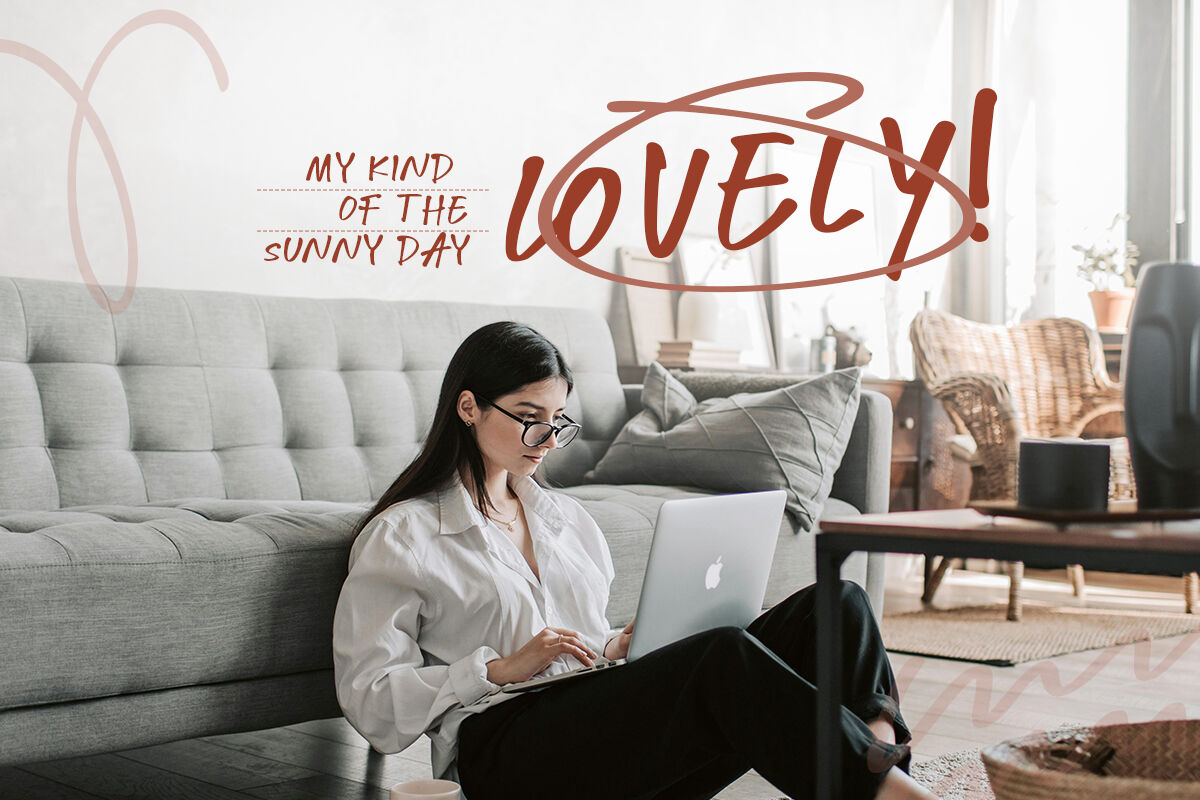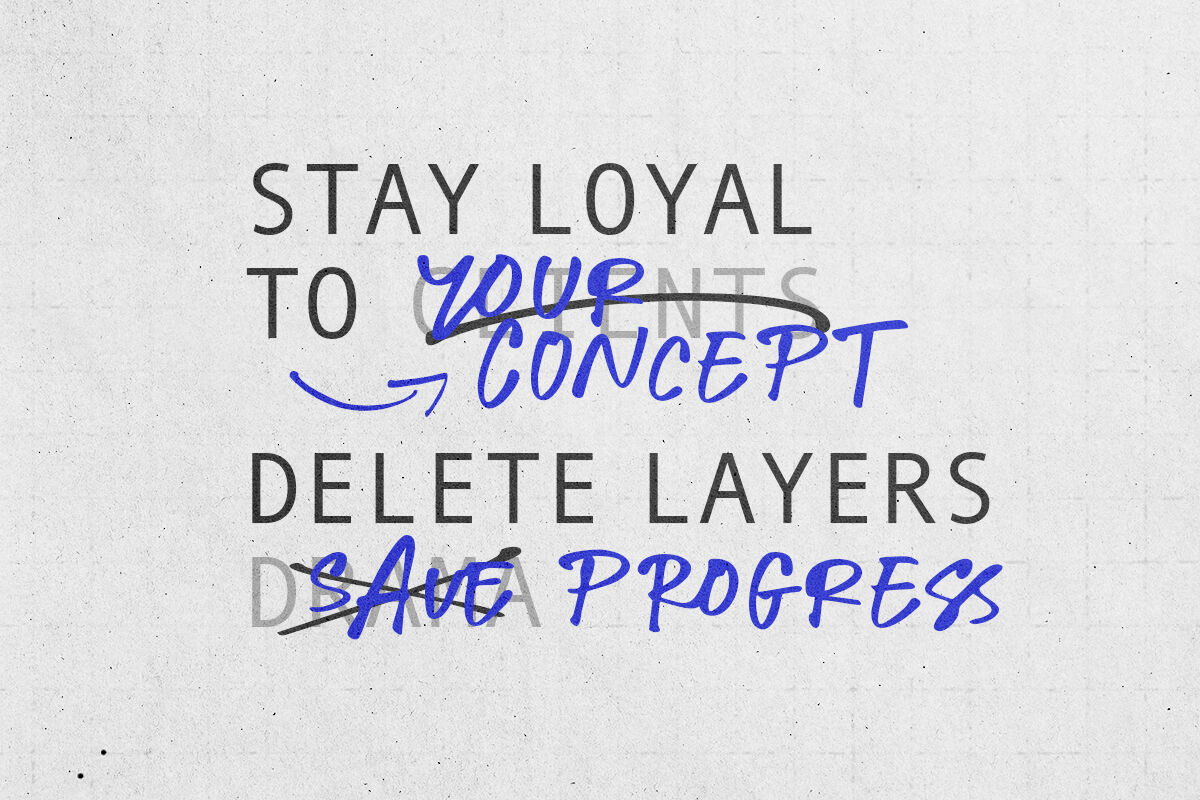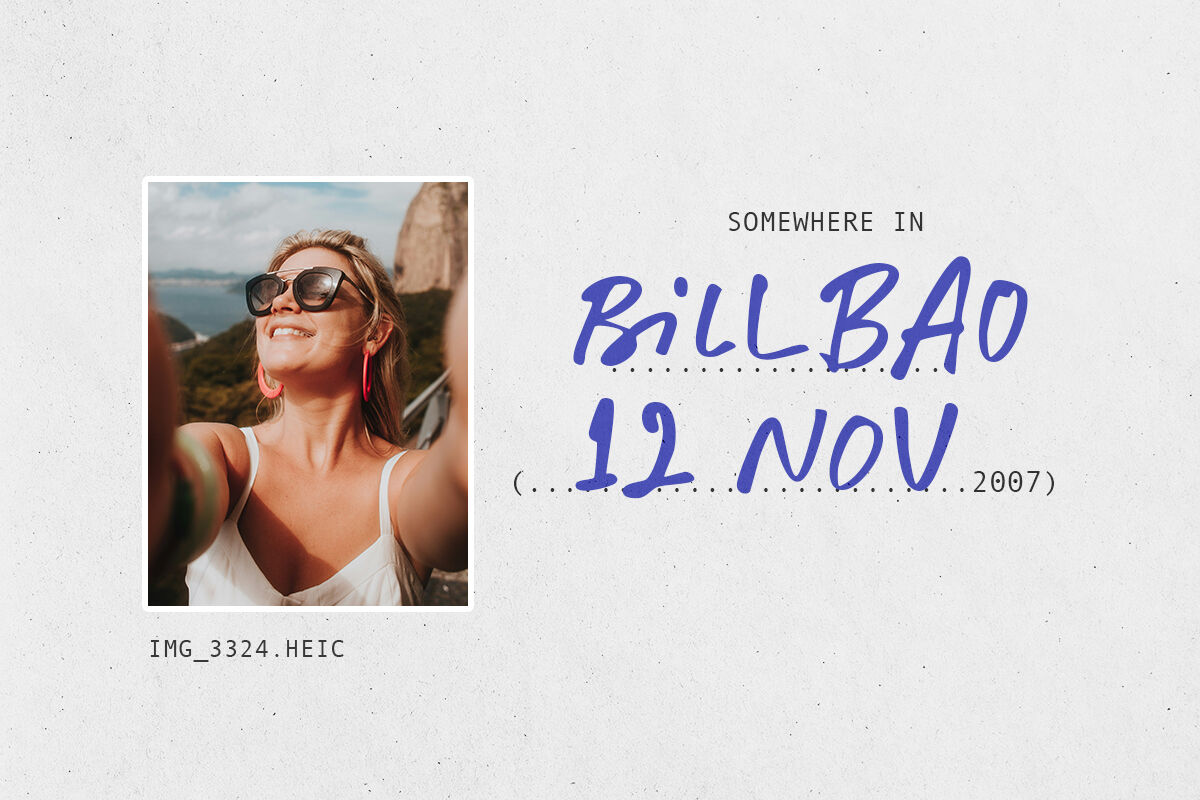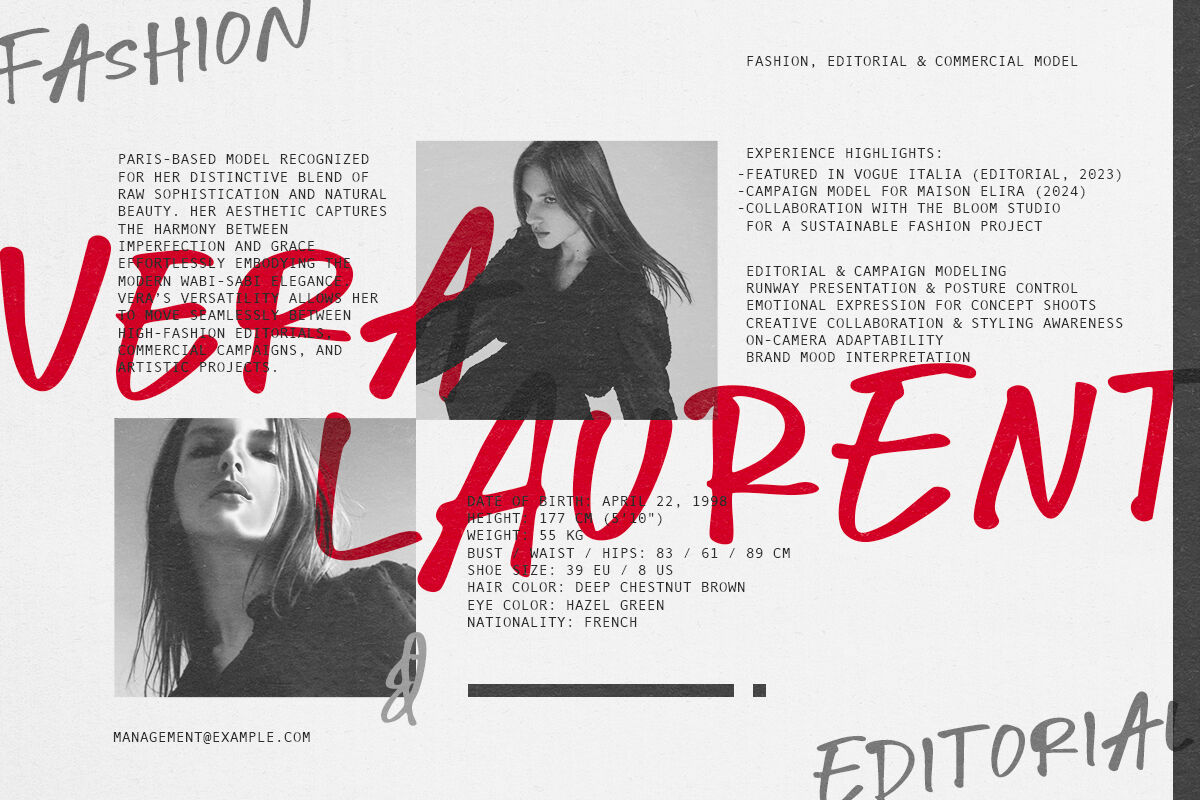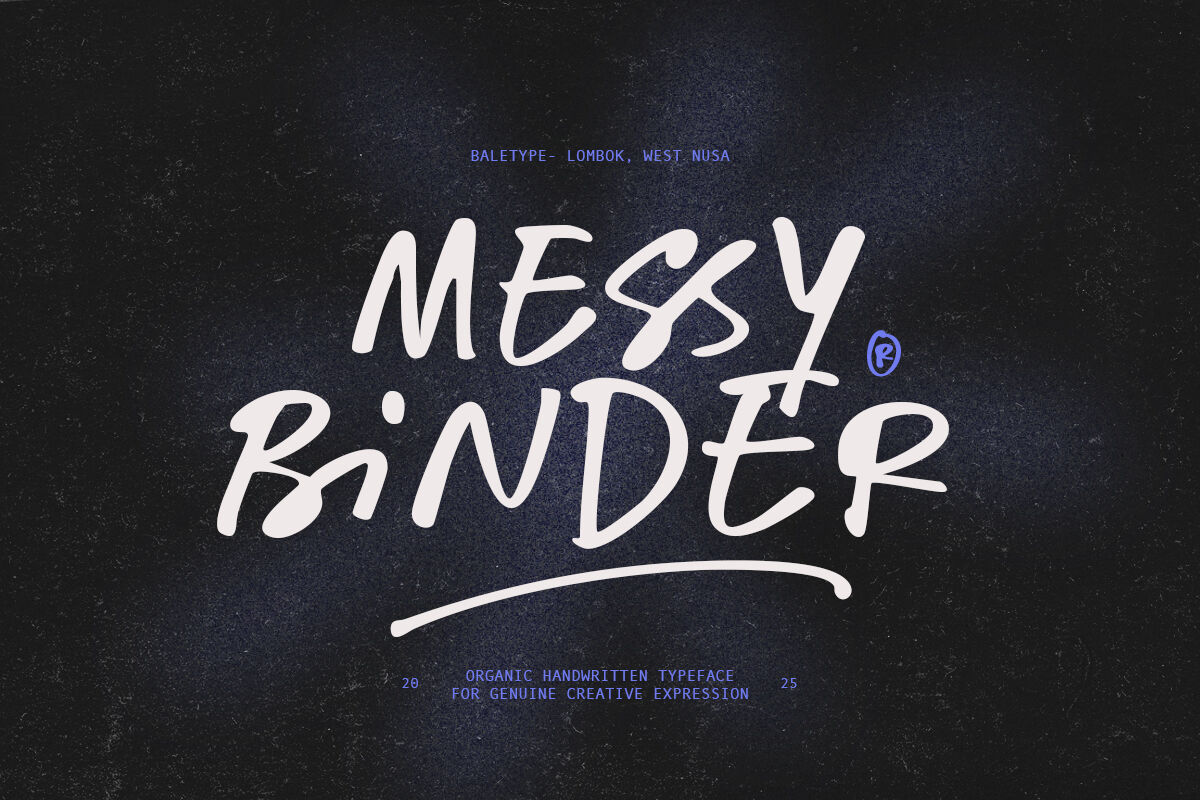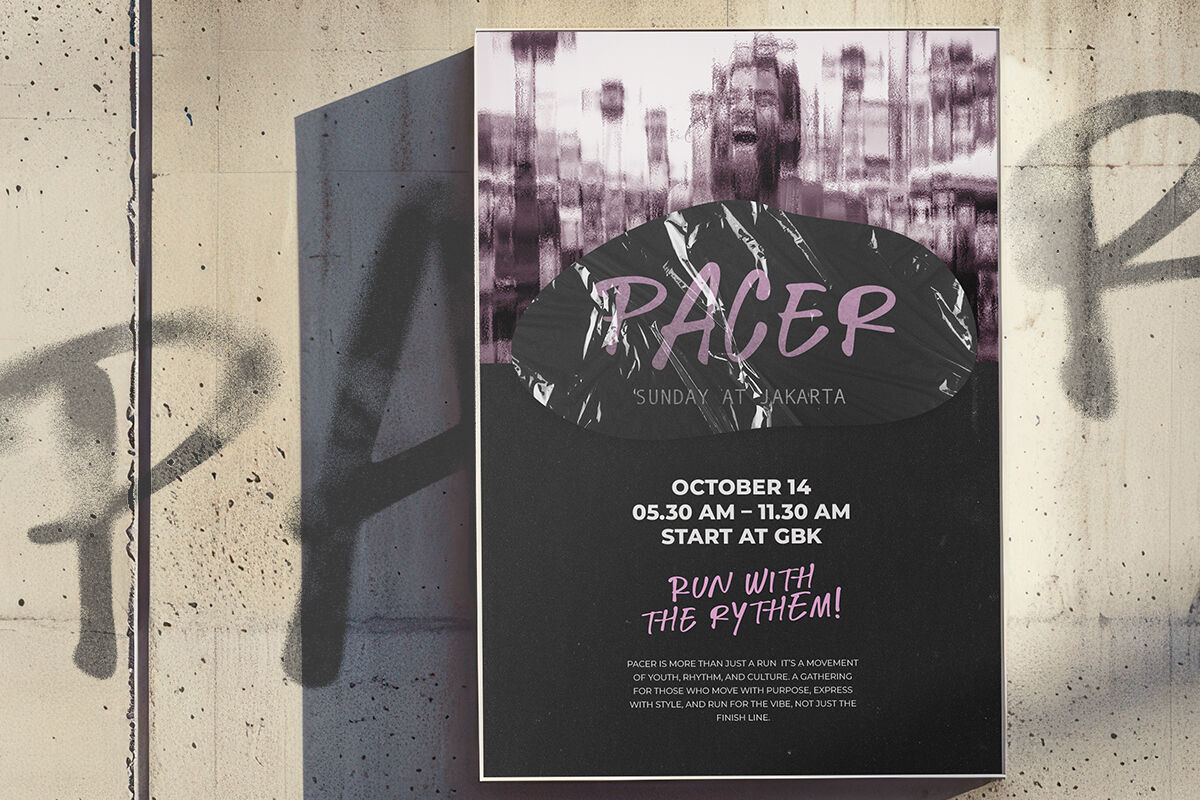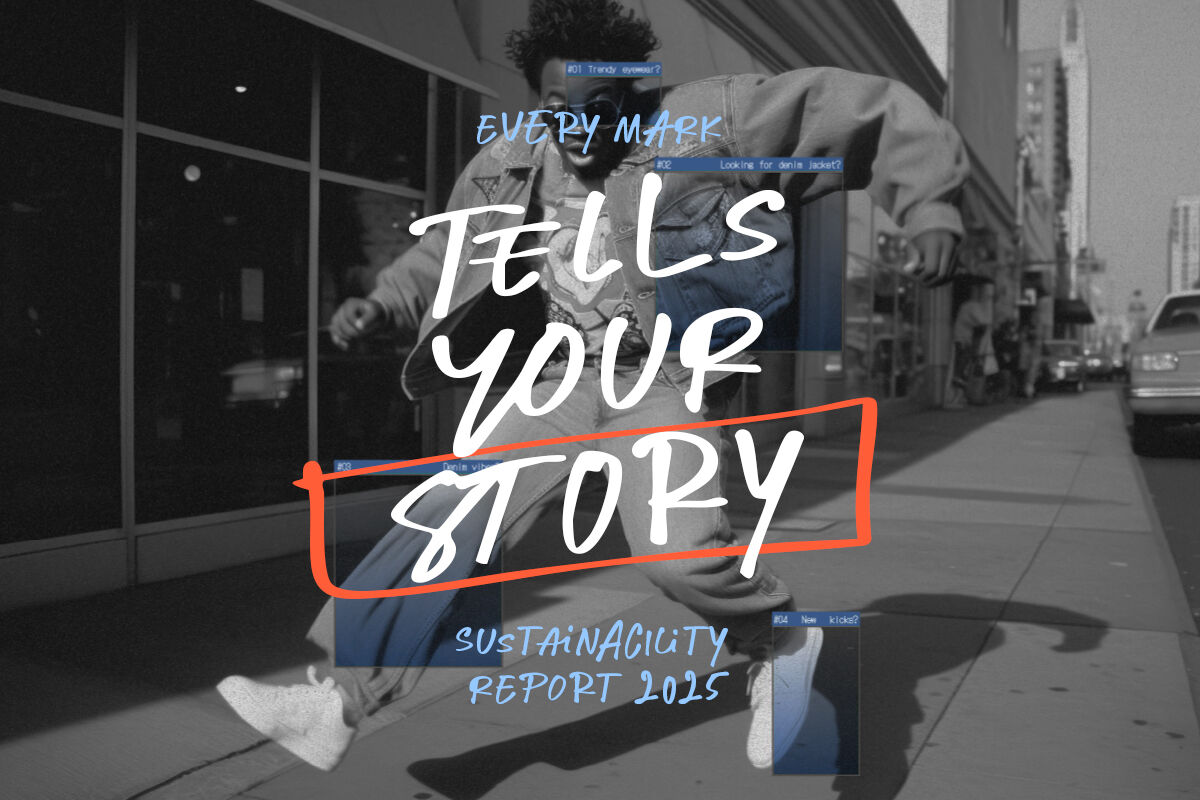
Messy Binder - Handwritten Font
Messy Binder is a stylish and organic handwritten all caps font. With bunch of ligatures, this font will make your design more looks naturally handwritten. You can use this font for any purposes such as quote, branding, caption, and any project that require messy looks. Messy Binder also included scribble that you can use to add the messiness. This font also support multi language.